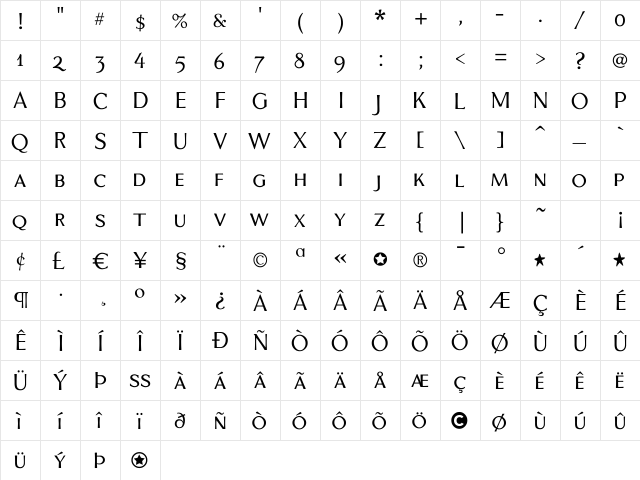
VenisSmall Caps Regular Regular
Design Context for VenisSmall Caps Regular Typeface
VenisSmall Caps Regular offers clean, dependable letterforms without strong stylistic allegiance, making it a practical choice for designers who need flexibility.